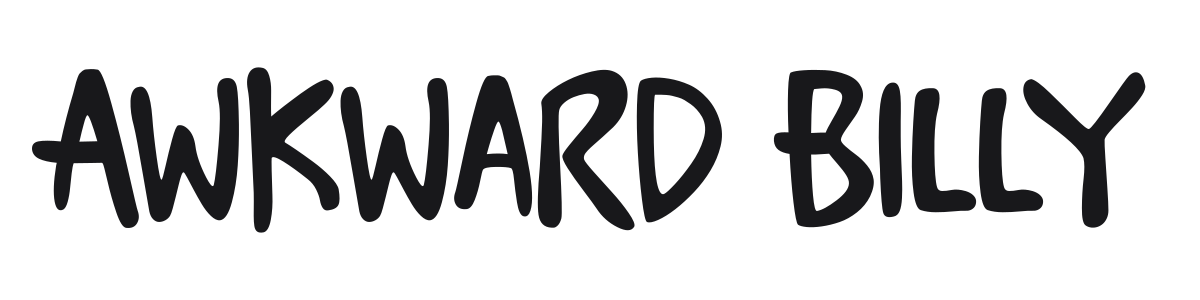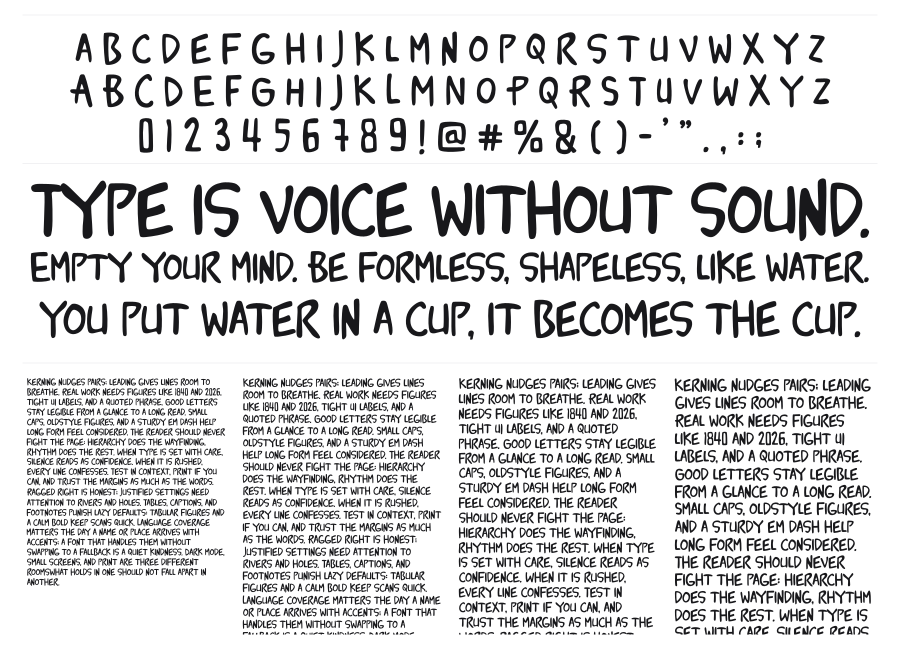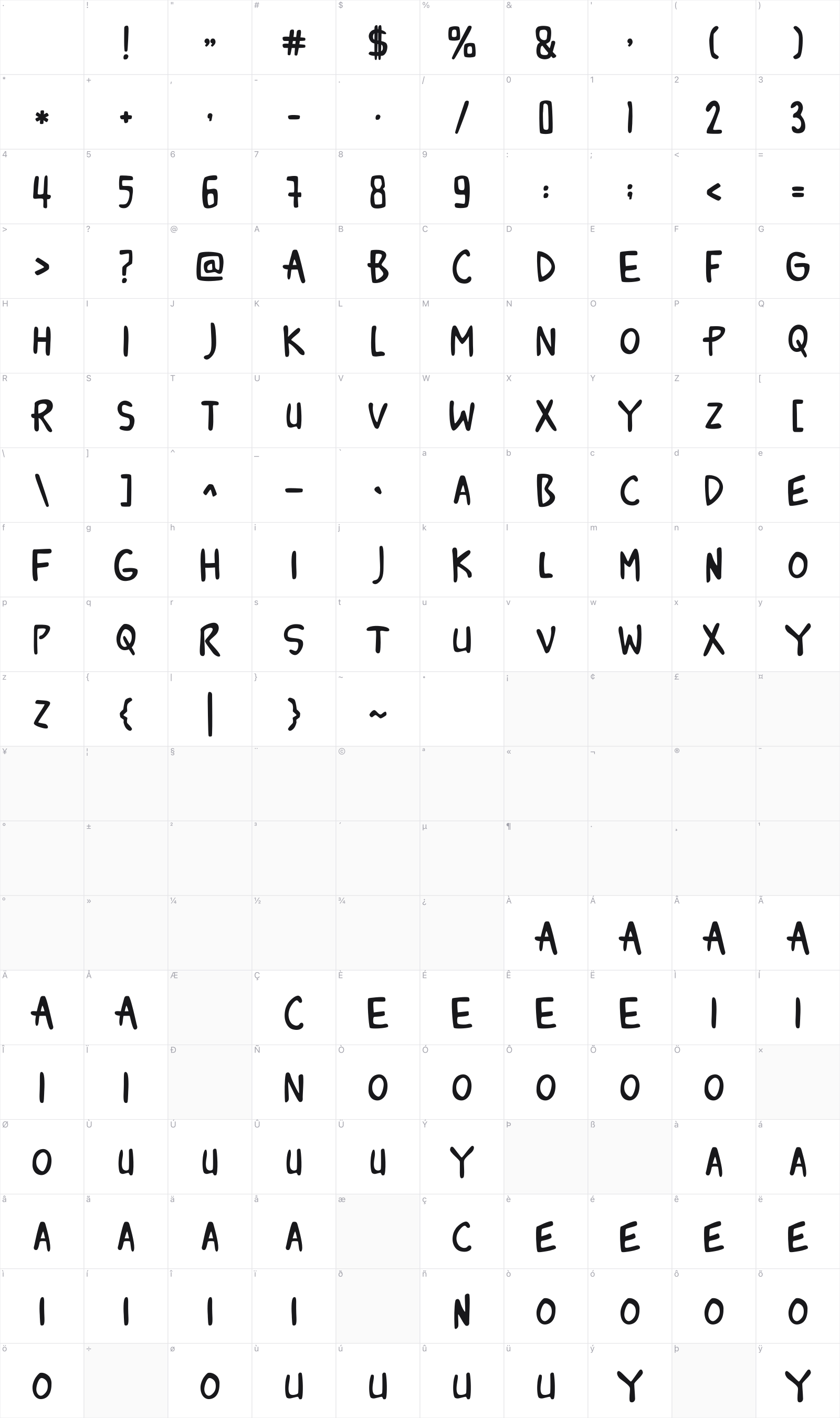
Awkward Billy
Awkward Billy is a bold, hand-lettered casual font with chunky rounded strokes and deliberate irregularities that give it genuine handmade personality. The letters wobble just enough to feel spontaneous without becoming hard to read. It suits anything that needs warmth, energy, and a touch of humor at large sizes.